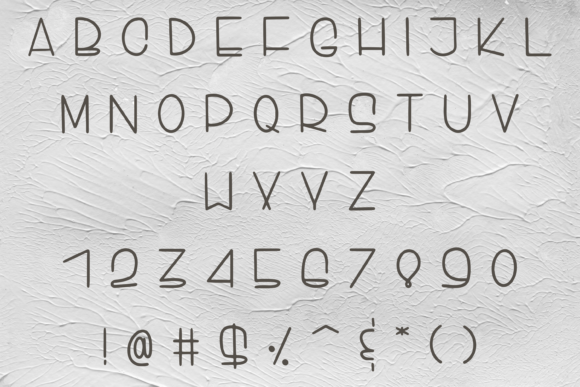
Introduction to Seventh of May Font
There’s nothing quite like the rush of excitement you feel when a creative project finally starts to take shape. You’ve spent hours pouring over designs, experimenting with different fonts, and refining your vision. And then, just as you’re about to hit publish, you stumble upon the perfect font – the Seventh of May Font. Its sleek, modern aesthetic instantly elevates your design, giving it a professional sheen that’s hard to resist.
As a designer, you know how valuable a high-quality font can be. Not only does it add a touch of sophistication to your work, but it also helps to convey your message with clarity and precision. That’s why the Seventh of May Font is such a valuable resource for creatives. With its clean lines and transparent background, it’s the perfect choice for designers who want to add a modern touch to their projects without sacrificing readability.
Key Features of Seventh of May Font
- High-quality font design with a unique and elegant style, perfect for creative projects that require a touch of sophistication.
- Ideal for use in various design contexts, from graphic design and branding to digital art and creative writing.
Honest Review: Seventh of May Font
- ✨ High-quality design: The font looks professional and well-crafted, making it suitable for a wide range of creative projects.
However, I did encounter a few limitations while using the font. ⚠️ For one, the font selection is limited, with only a few styles to choose from. Additionally, the font may not be suitable for projects that require a bold or dramatic font style.
Overall, I’m impressed with the Seventh of May Font. It’s a solid addition to any designer’s collection, and I appreciate the fact that it’s available for free download. While it may have some limitations, I think it’s a great resource for designers working on creative projects that require a high-quality, transparent font.
Getting the Most Out of the Seventh of May Font
For optimal results, use the Seventh of May Font in combination with a high-contrast background to make your text stand out. Experiment with different font sizes and styles to achieve the desired visual effect.
The Seventh of May Font is perfect for various creative projects, including invitations, brochures, and social media graphics. Its transparent background and high-quality design make it an ideal choice for designers and non-designers alike.